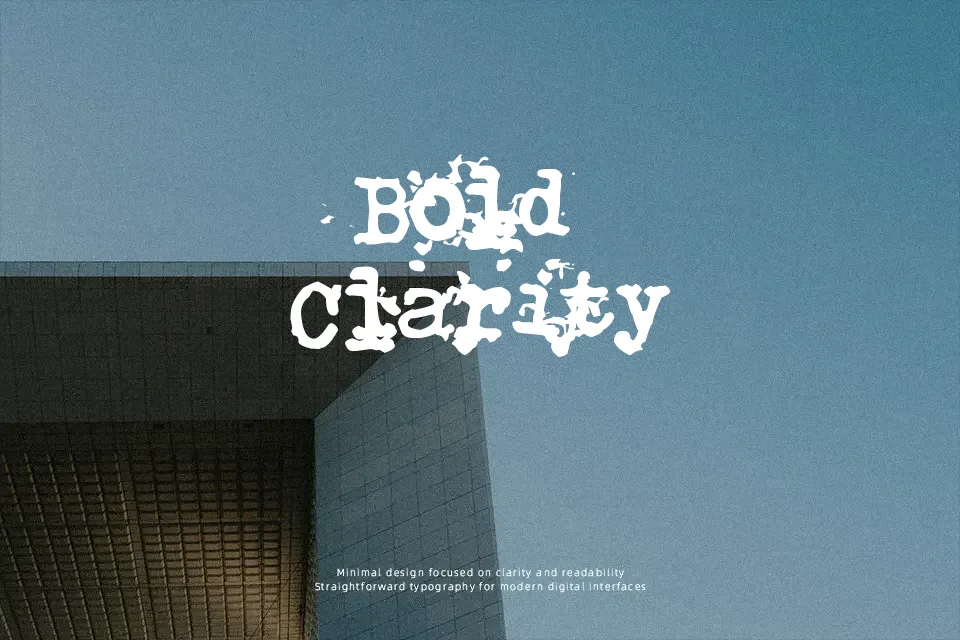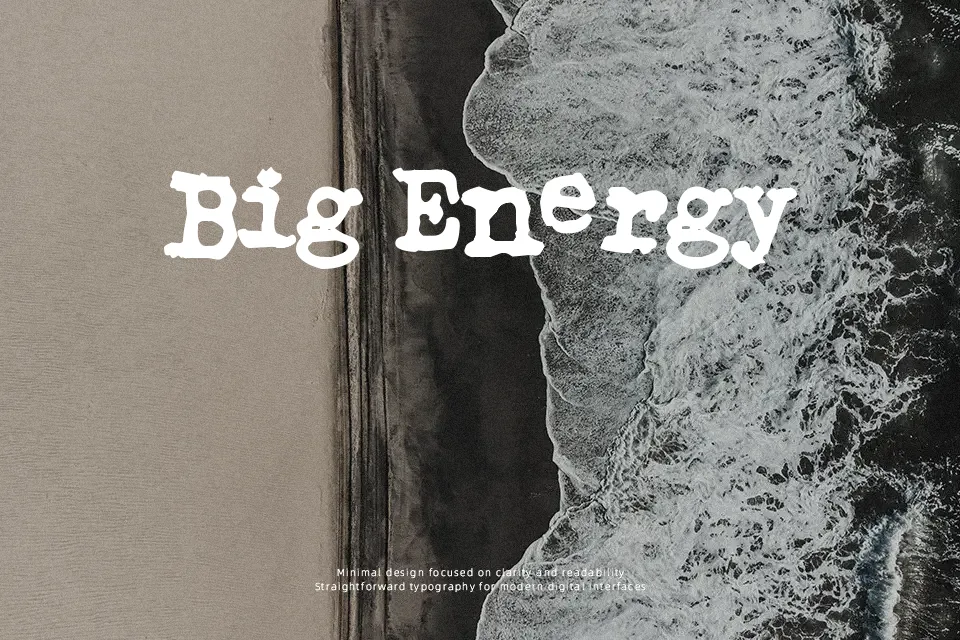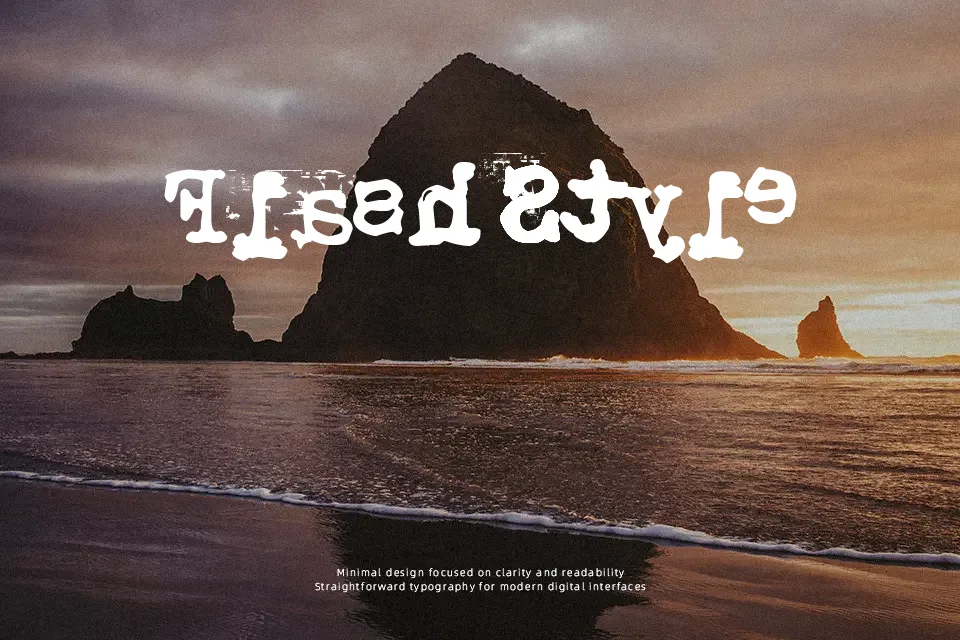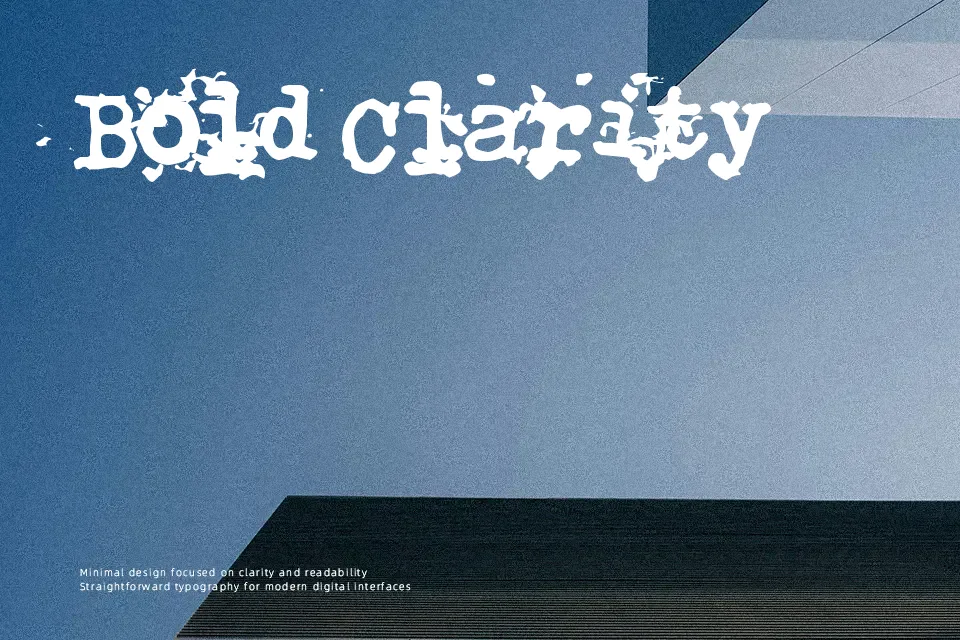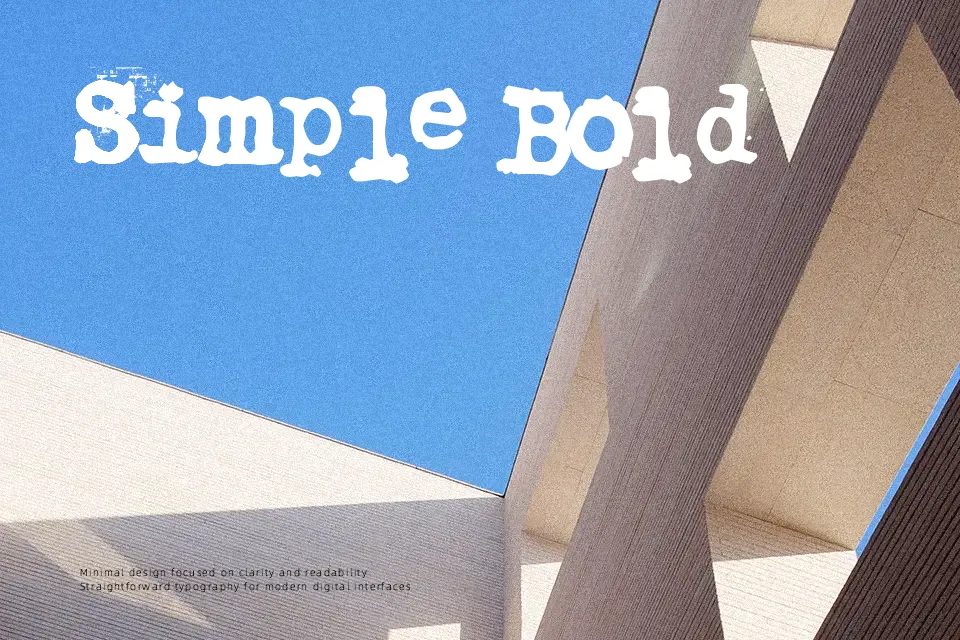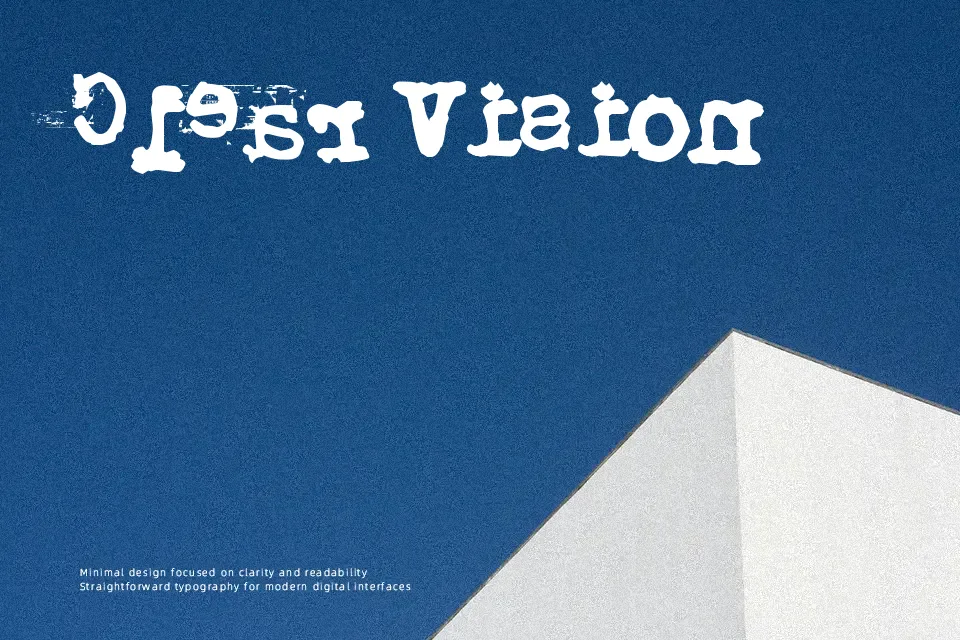
Typistys Font
Typistys Font works best as short display text, using uneven typewriter-inspired shapes and visibly worn-looking strokes to create a printed, analog character. The letterforms appear moderately narrow with compact, structured spacing, while the imperfect edges reduce the uniformity associated with cleaner monospaced faces. Capitals, lowercase letters, numerals, and punctuation support a consistent typewritten rhythm in headlines and labels. Its texture remains most effective at larger sizes, where the distressed details are easier to see. For extended paragraphs or small captions, the rough forms can make continuous reading feel less comfortable.
Best For: vintage poster headlines,journal-style cover titles,retro product labels,editorial pull quotes
Perfect for editorial, headline, and packaging, with a creative and decorative style.